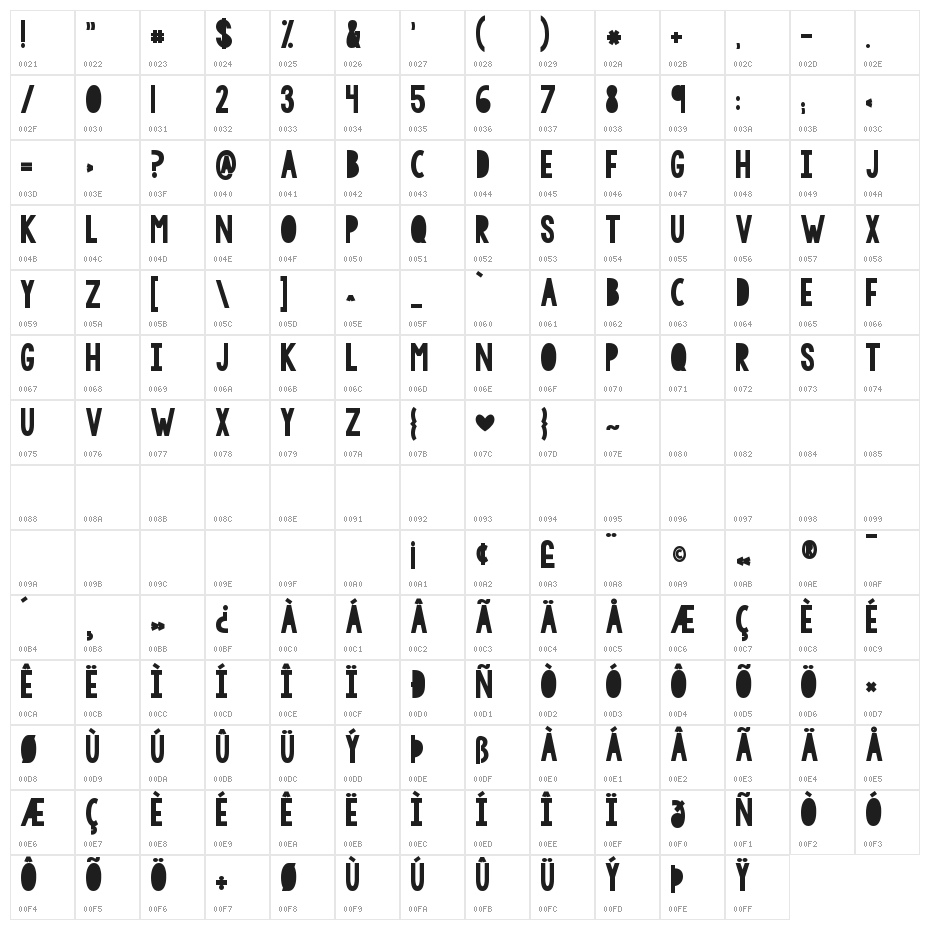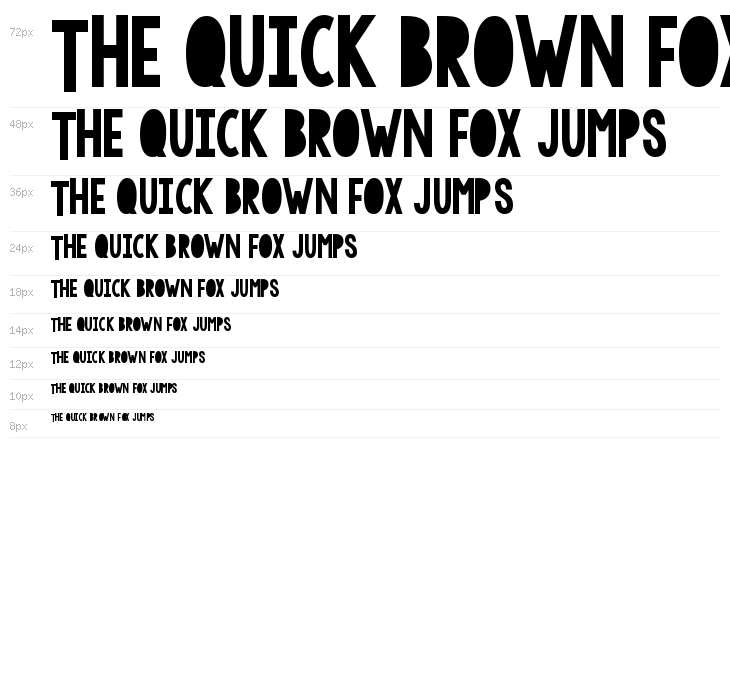
KG BLESS YOUR HEART Font
KG BLESS YOUR HEART Description
This font features bold, geometric letterforms with a strong presence. The uppercase letters are particularly striking, with a uniform height and width that create a cohesive and impactful look. The lowercase letters maintain the boldness, offering a consistent visual weight throughout. Numbers and special characters are designed with the same bold style, ensuring they stand out clearly. The font's overall design is modern and assertive, making it suitable for attention-grabbing headlines or branding materials. Its clean lines and lack of serifs contribute to a contemporary aesthetic, while the bold weight adds a sense of authority and confidence.
| Proposed Projects | Ideal for headlines, posters, branding, and any project requiring a strong visual impact. |